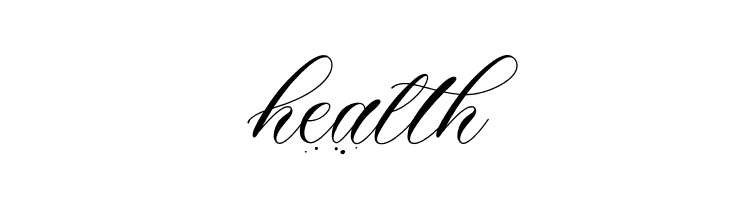
A bold, modern font with a halftone gradient effect and geometric shapes.
A bold, halftone-effect font with a striking, textured appearance.
A bold, italicized font with a two-tone gradient effect and tight spacing.
A dynamic and expressive script font with fluid, cursive strokes.
An elegant script font with flowing lines and delicate curves.
A bold, playful script font with a lively, handwritten style.
An elegant script font with flowing, interconnected letters and ornate swashes.
A flowing, cursive font with elegant, interconnected characters.
A playful, bold font with rounded edges and a whimsical style.
A fluid, elegant script font with a natural handwritten style.